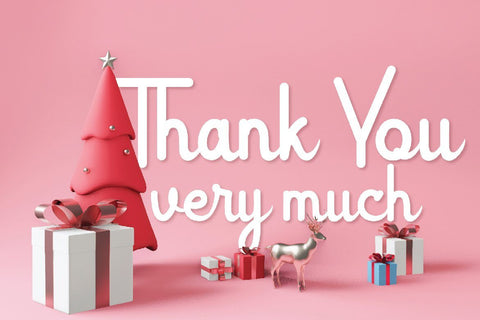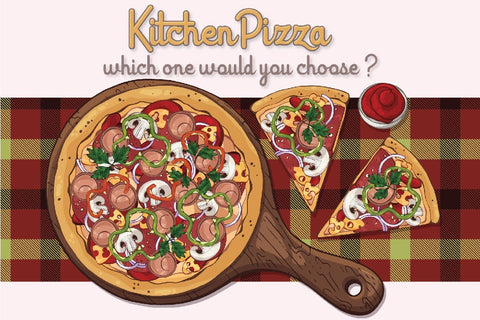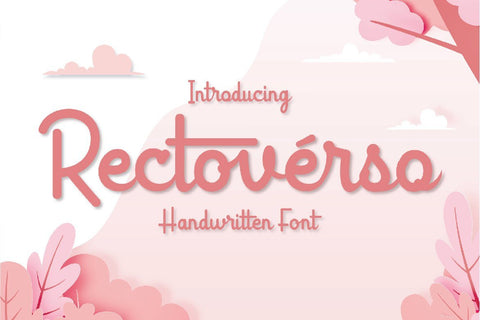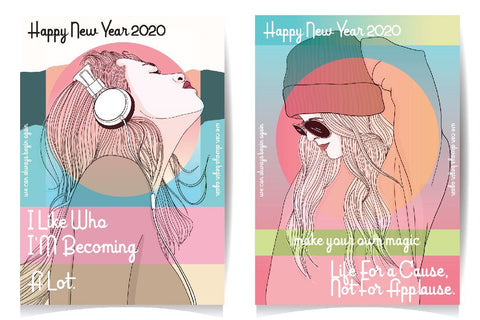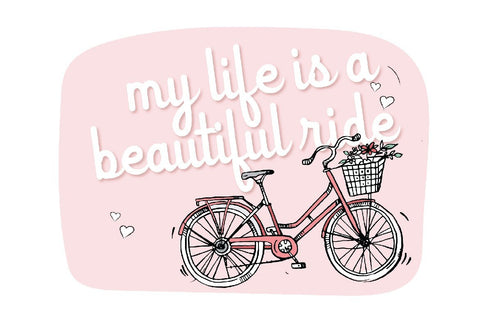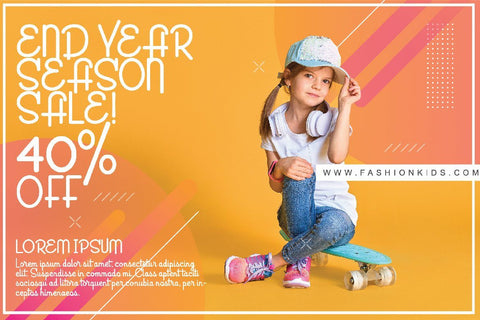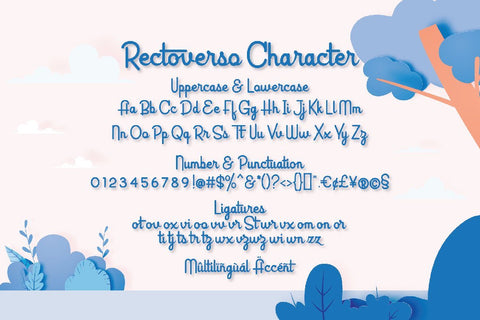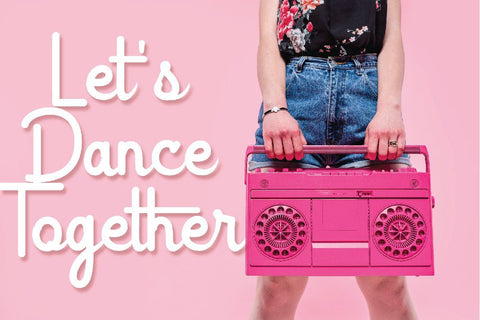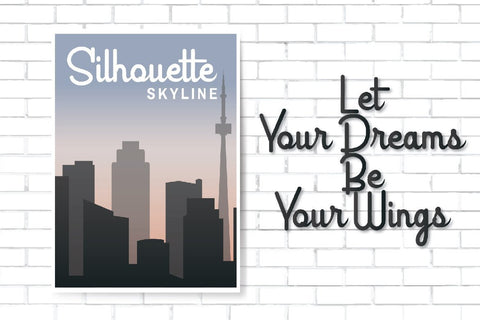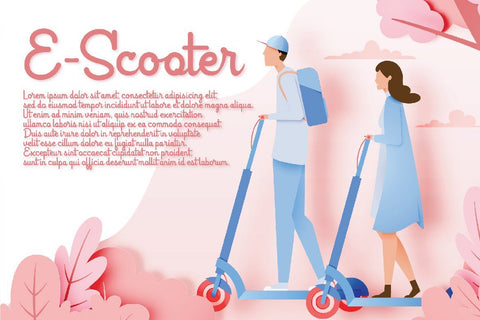
Rectoverso Script
Introducing of our new product the name is Rectoverso Script.Rectoverso Script is modern and playfull script but also suitable for retro fonts,
this font is a fun theme very good for banner,fashion ,tshirt , poster, food, wedding, branding etc
MULTILINGUAL ACCENT :
ŽžŠŒšŸÀÁÂÃÄÅÆÇÈÉÊËÌÍÎÏÐÑÒÓÔÕÖØÙÚÛÜÝßàáâãäåæçèéêëìíîïñòóôõöøùúûüýÿ